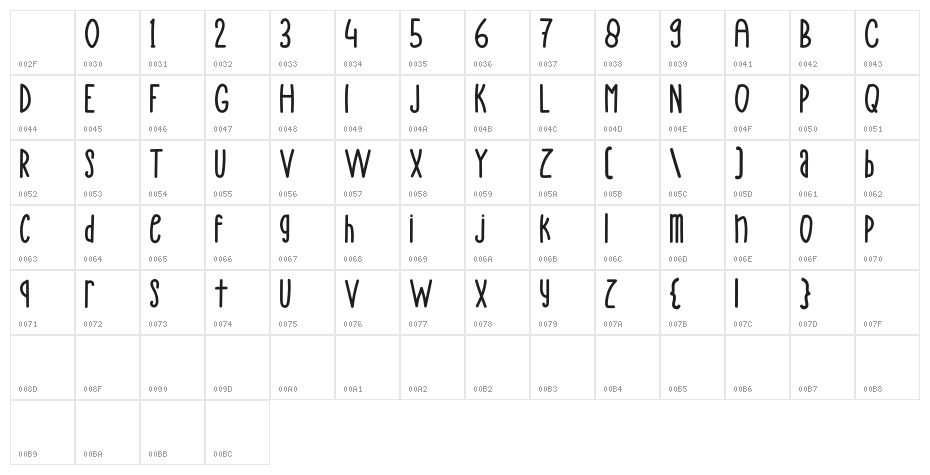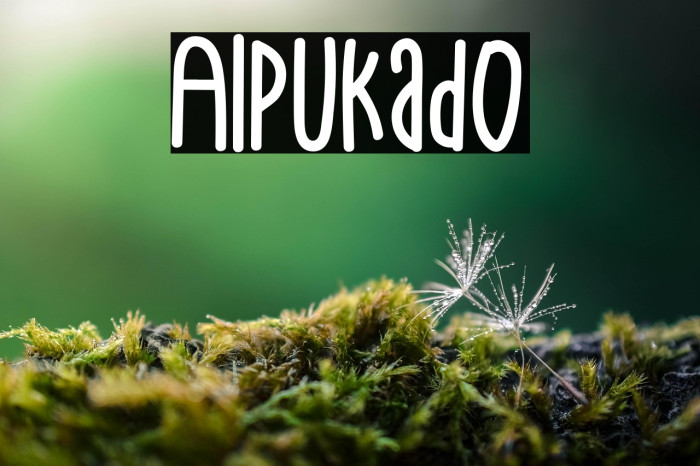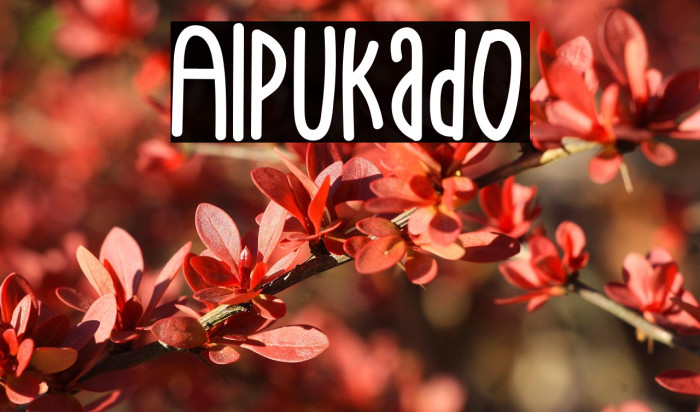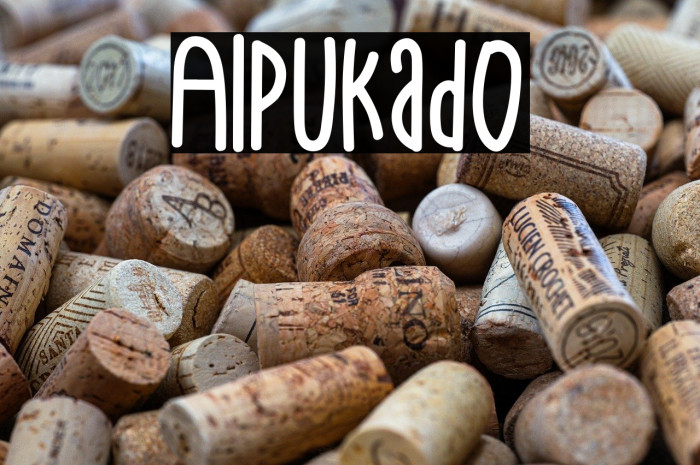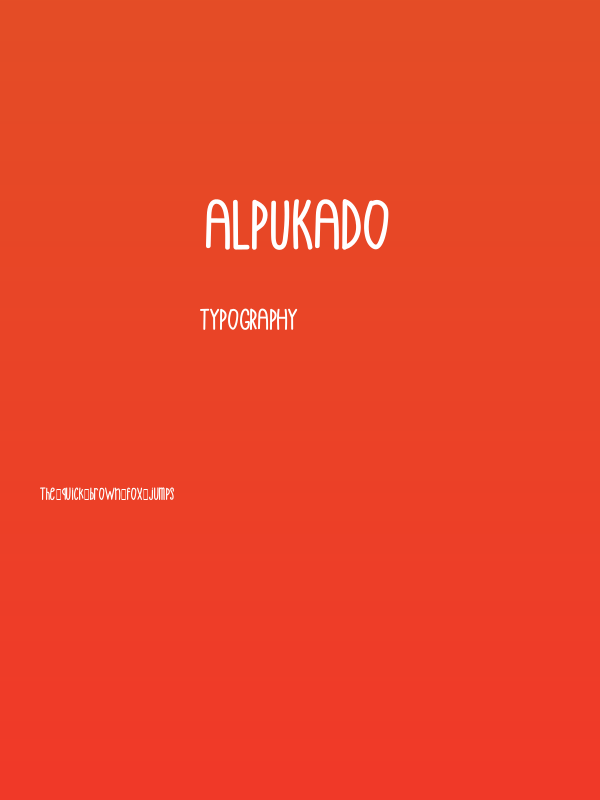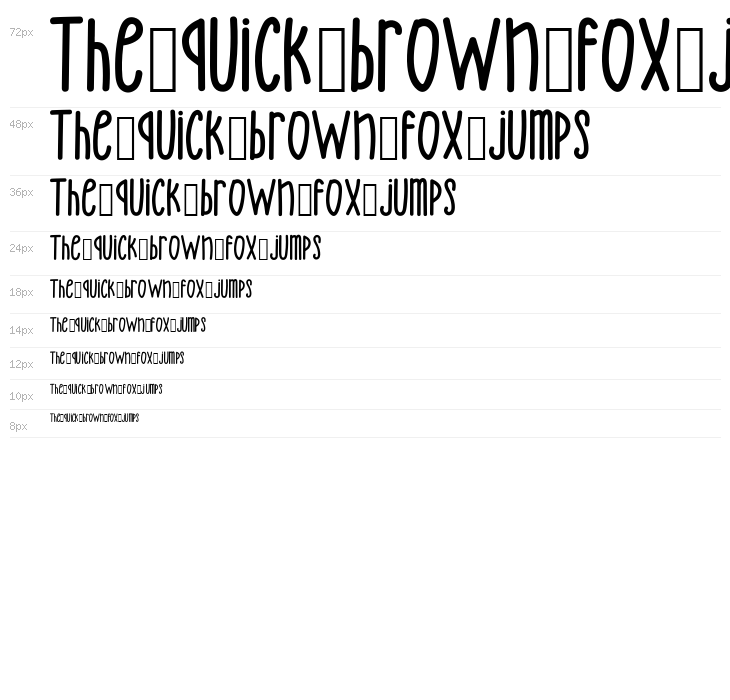
Alpukado Font
Alpukado Description
A playful, handwritten font with tall, narrow characters and a casual style.
| Proposed Projects | Greeting cards, children's books, casual branding. |